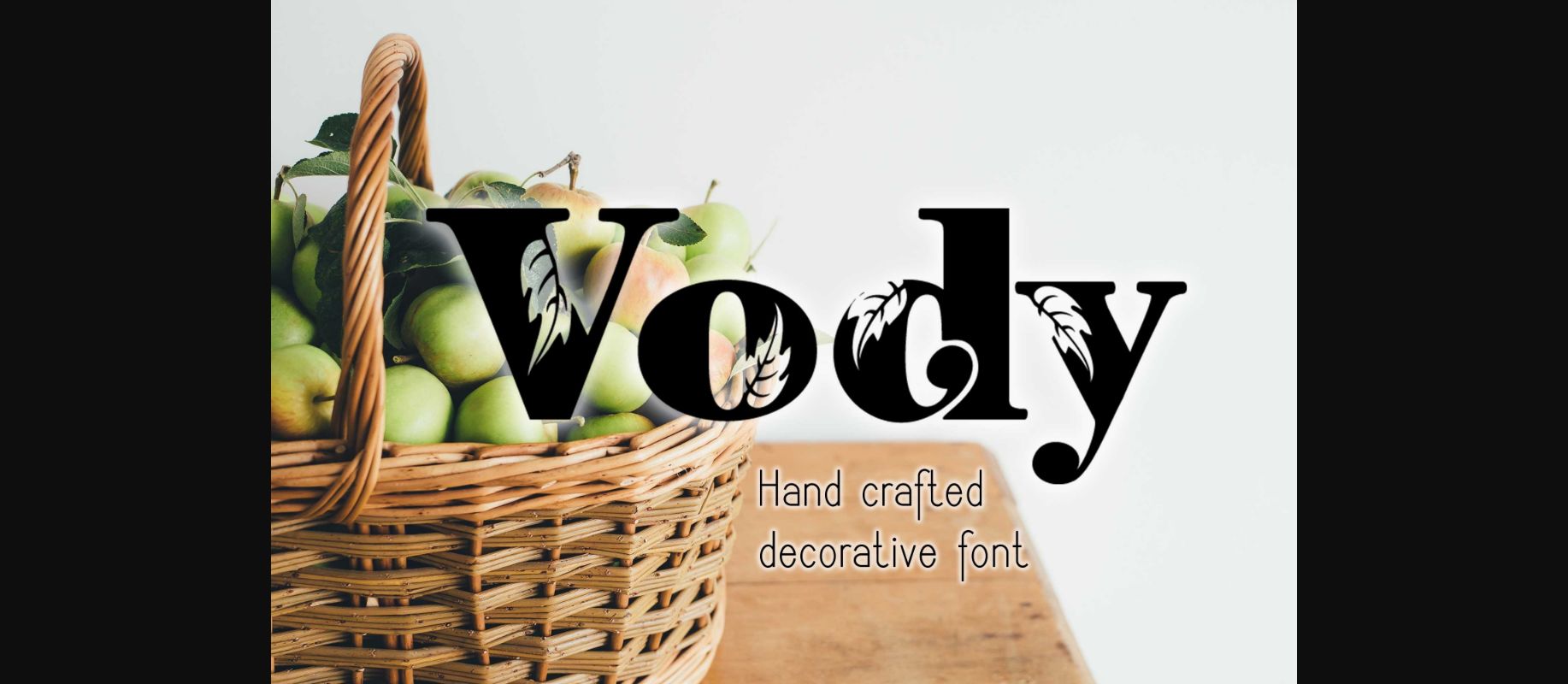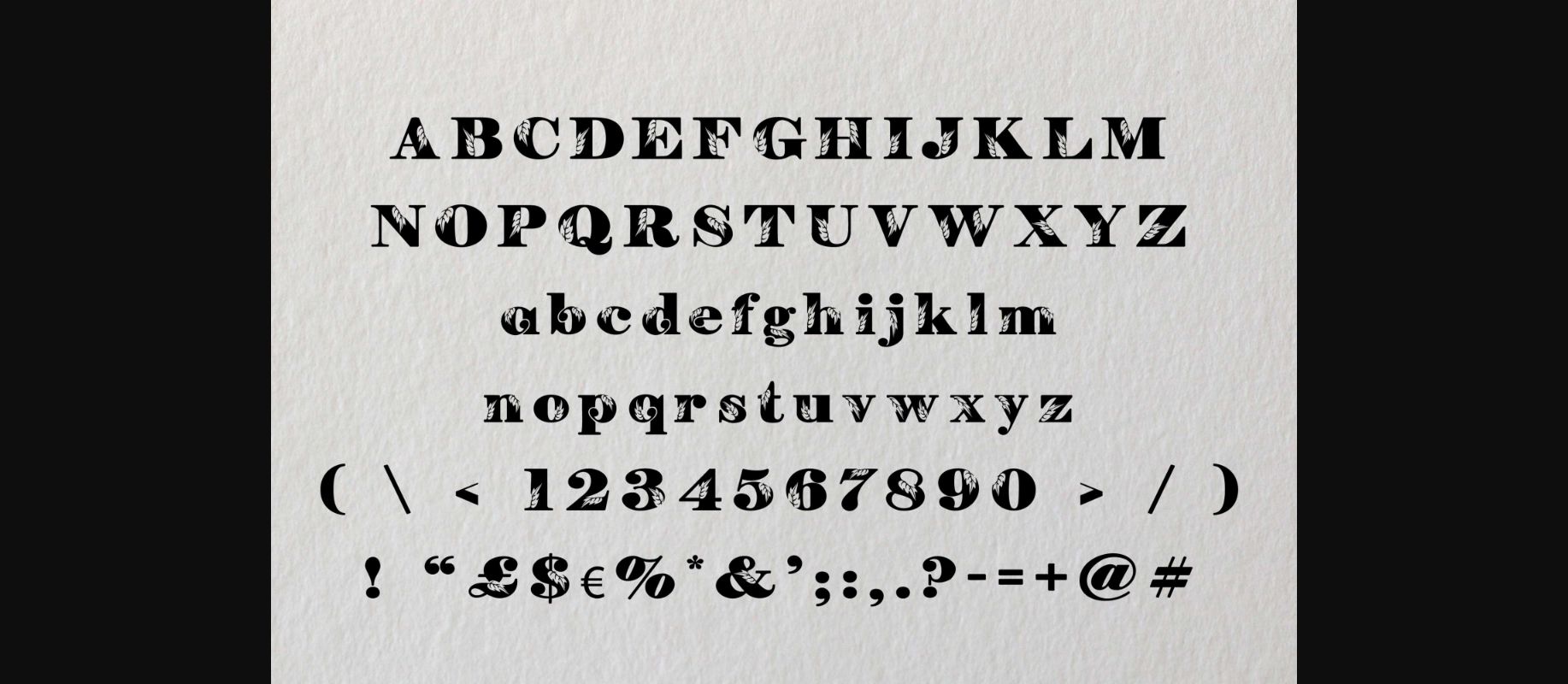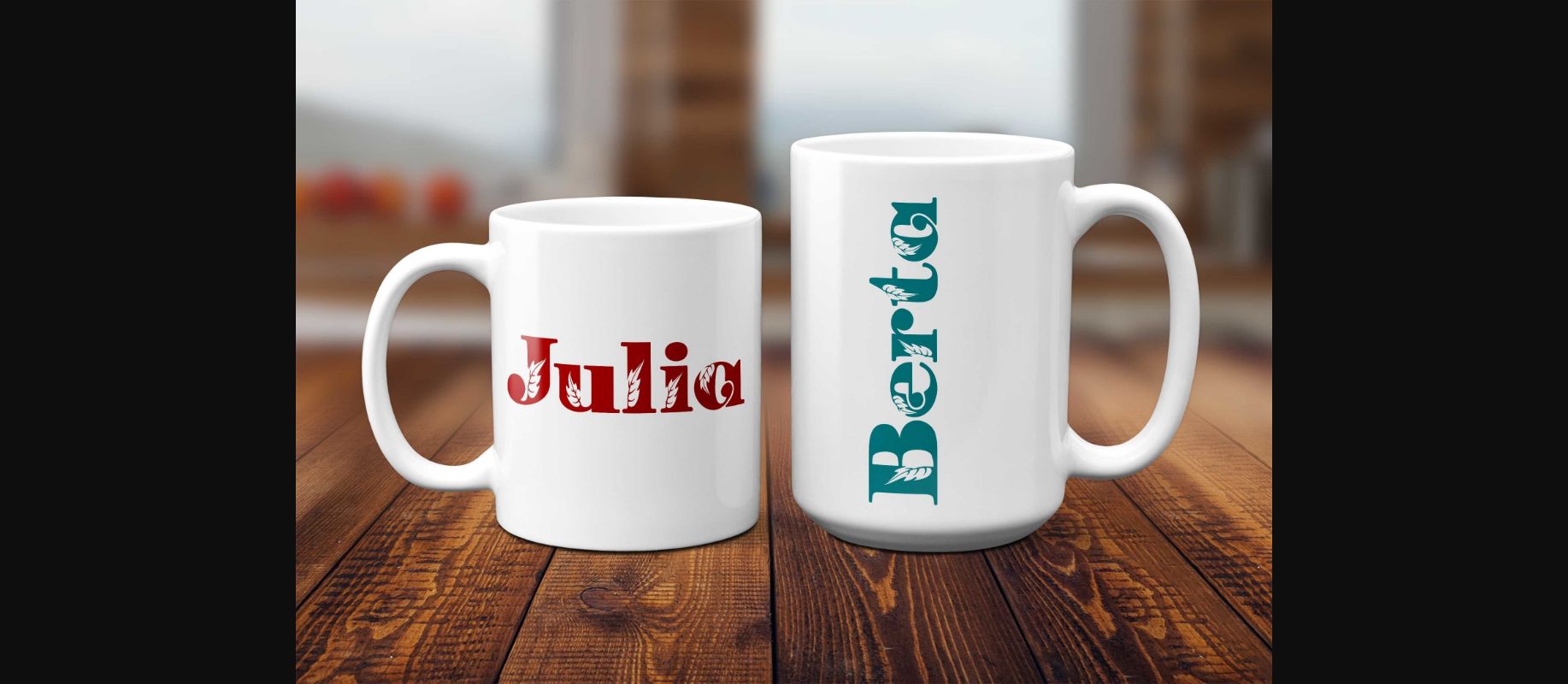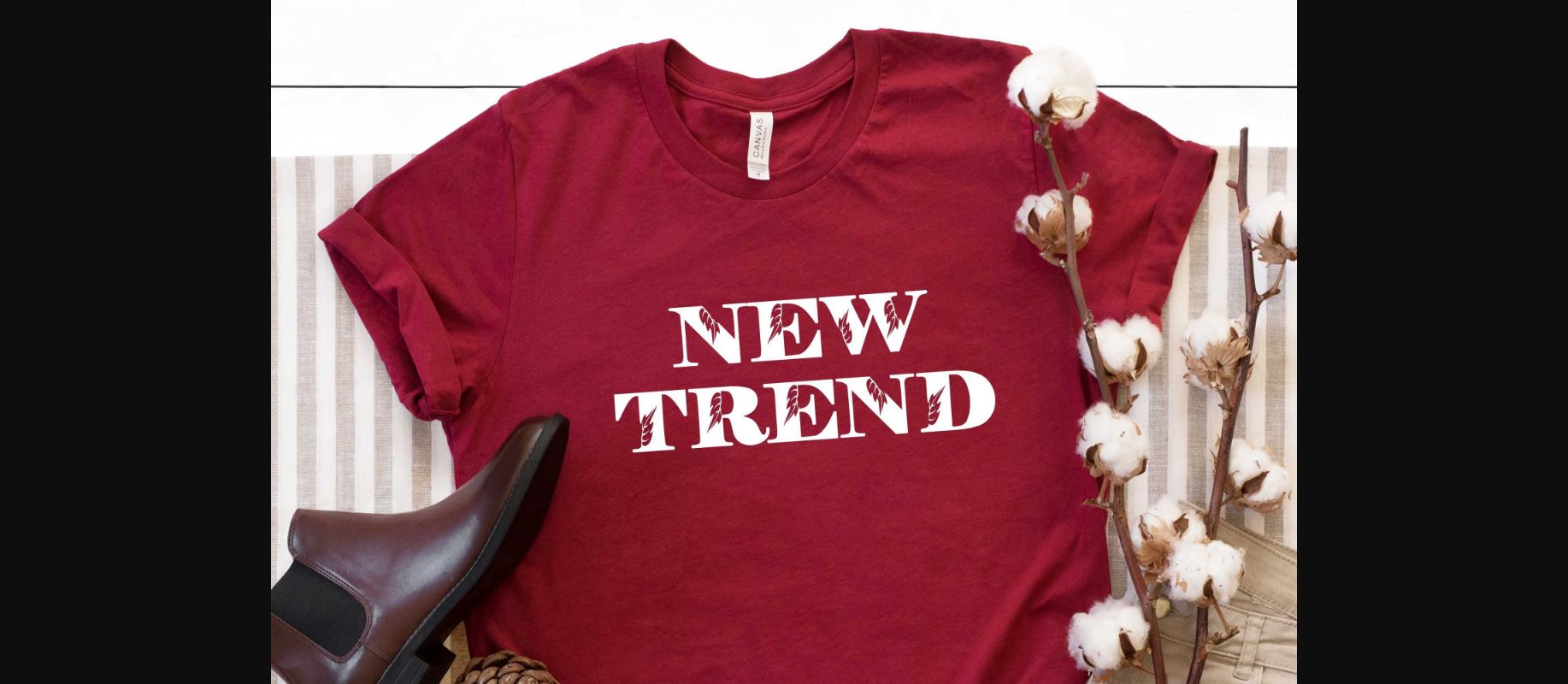
About Vody Font
Vody is a beautifully crafted decorative font, suitable for designs that need to get noticed.
This font is great for book covers, titling, signage, poster, flyers, calendars, headlines, cards, and other printed stationeries or craft projects.